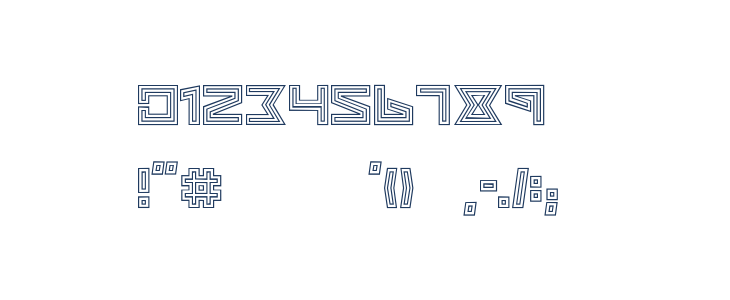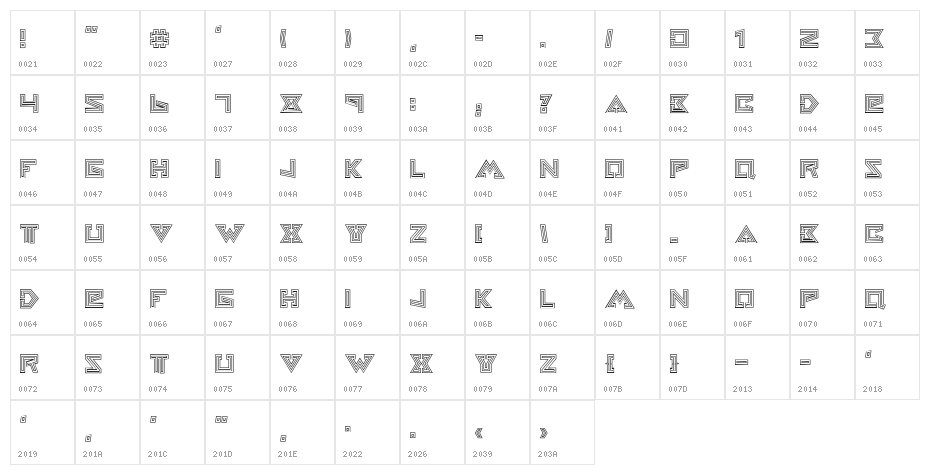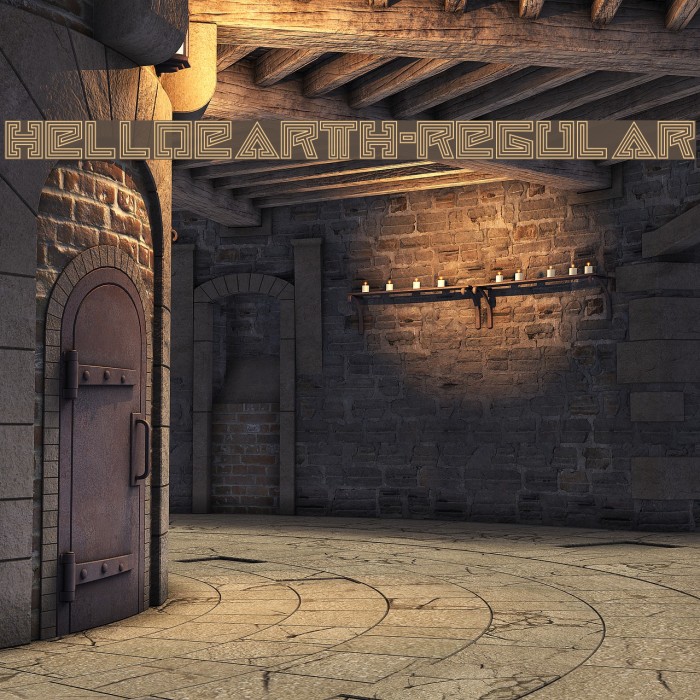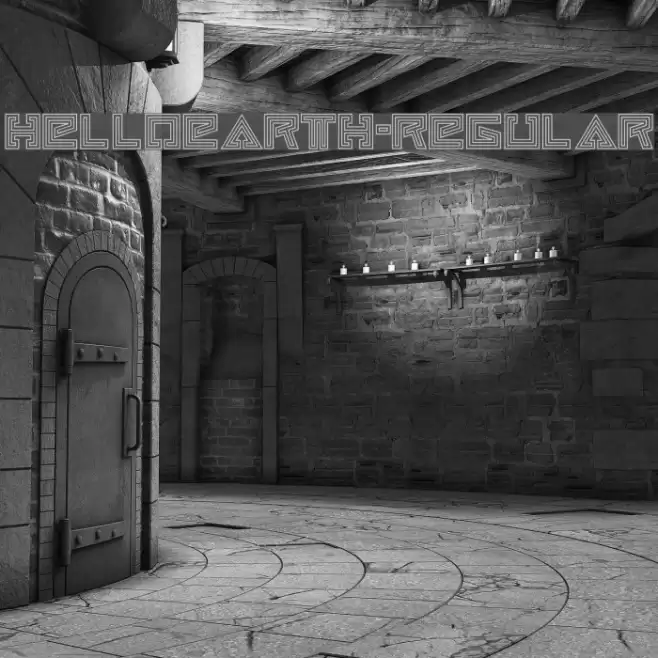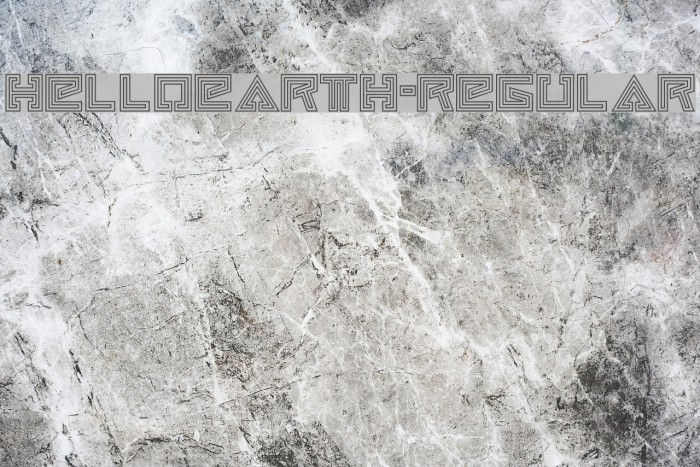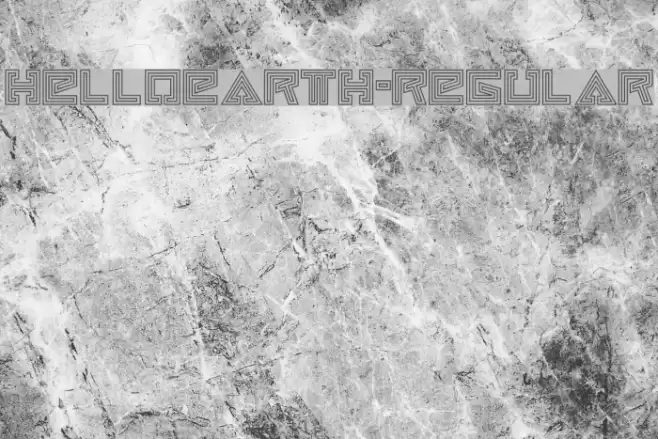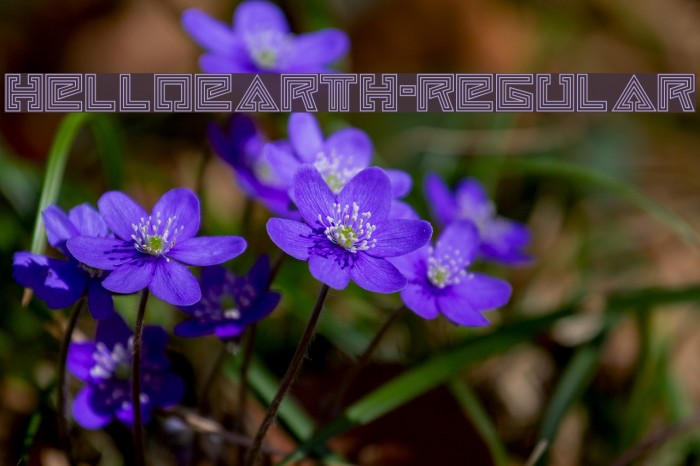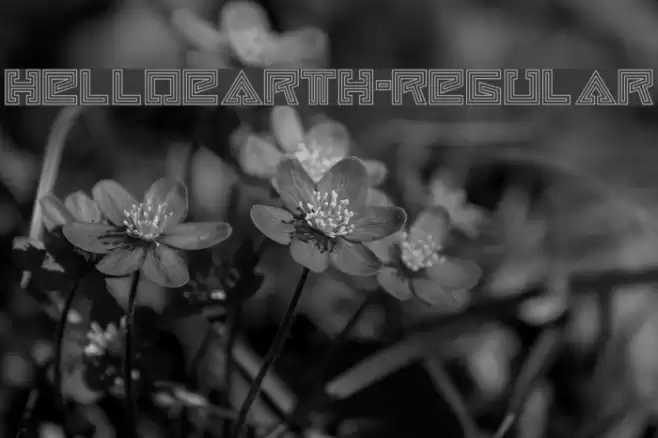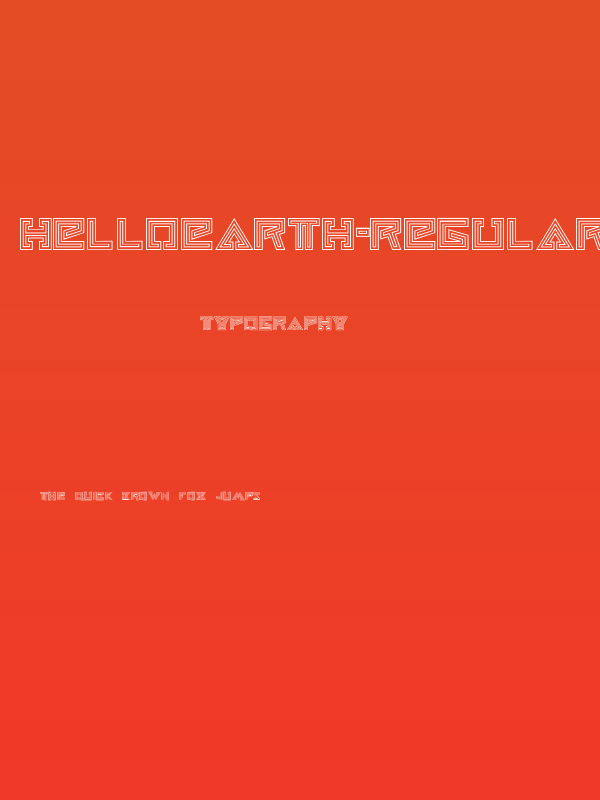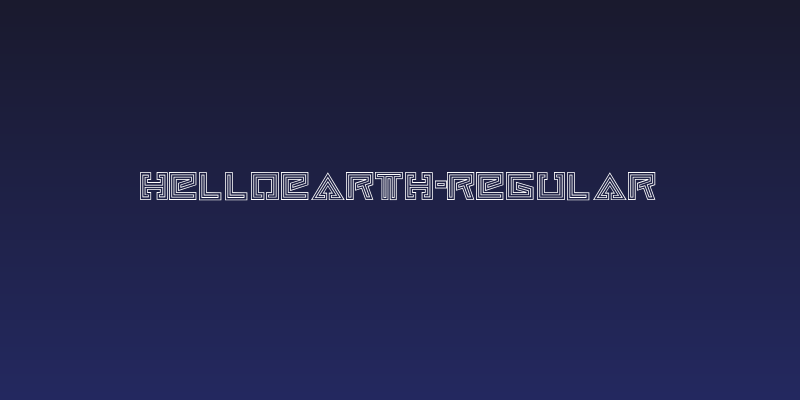
HelloEarth-Regular Font
HelloEarth-Regular Description
This font features a bold, geometric design with a futuristic flair. Each character is constructed with multiple parallel lines, creating a layered, three-dimensional effect. The angular shapes and sharp edges give it a distinct, modern look. The uppercase and lowercase letters maintain a consistent style, with the lowercase slightly smaller but equally impactful. Numbers and special characters follow the same design principles, ensuring uniformity across all elements. This font stands out with its intricate detailing and strong visual presence.
| Proposed Projects | Ideal for sci-fi themed projects, tech branding, video game titles, and futuristic posters. |